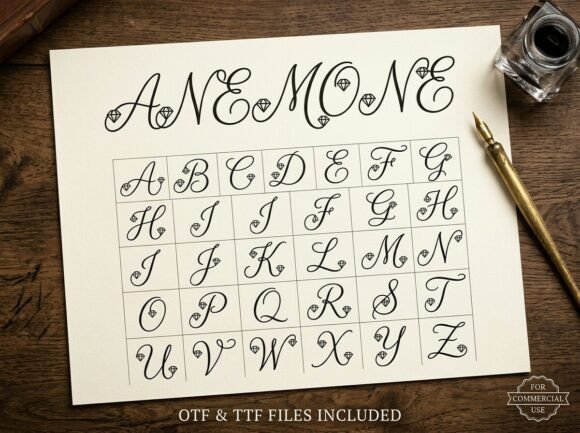
Dazzle Your Audience with Anemone: The Premium Ornamented Script Font
In the world of typography, few fonts manage to convey the essence of luxury and elegance as effectively as Anemone. This premium ornamented script font is a masterpiece of high-end design, bringing together the fluidity of calligraphic strokes with the opulence of gemstone-inspired accents. Anemone is more than just a font – it’s an experience, designed to elevate your brand, designs, and creations to new heights of sophistication and glamour.
The Essence of Anemone: Elegance and Opulence
Anemone’s design is characterized by its elegant, sweeping calligraphic strokes that dance across the page with a rhythmic flow. What sets this font apart, however, is its unique embellishment: each capital letter is adorned with a sparkling diamond icon, meticulously crafted to add an extra layer of luxury and refinement. This distinctive feature makes Anemone the perfect choice for designers and crafters looking to infuse their projects with a touch of high-end glamour.
Applications of Anemone: Where Luxury Meets Design
Anemone’s versatility and sophistication make it suitable for a wide range of applications, particularly where the essence of luxury needs to be communicated. Some of the ideal uses for Anemone include:
• Luxury Boutique Branding: For high-end boutiques and luxury brands, Anemone offers a typographic solution that exudes exclusivity and elegance, helping to create a lasting impression on discerning clients.
• Independent Jewelry Designer Logos: Given its gemstone-inspired aesthetic, Anemone is a natural fit for jewelry designers looking to brand their business with a symbol of sophistication and craftsmanship.
• High-Fashion Editorial Headers: Add a touch of glamour to fashion editorials and magazines with Anemone’s sophisticated and eye-catching lettering.
• Opulent Wedding Stationery: Make wedding invitations, menus, and other stationery elements shine with Anemone’s luxurious and romantic typography, setting the tone for an unforgettable celebration.
Why Choose Anemone?
Choosing Anemone for your design projects comes with numerous benefits:
• Unique and Memorable: The distinctive gem-set capital letters ensure that your designs stand out, making them more memorable to your audience.
• High Versatility: Anemone can be used across various design materials, from digital platforms to print, offering flexibility in its application.
• Elegance and Sophistication: The font’s inherent luxury aesthetic lends an air of sophistication to any project, elevating the perceived value of your brand or creation.
• Easy to Pair: Despite its ornate details, Anemone pairs well with a variety of fonts, allowing for creative combinations that enhance your design’s overall impact.
Tips for Using Anemone Effectively
To maximize the impact of Anemone in your designs, consider the following tips:
• Balance with Simplicity: While Anemone is stunning on its own, balancing it with simpler fonts can create visual interest and ensure readability.
• Consider Context: Ensure that the use of Anemone aligns with the project’s tone and audience. Its luxurious feel is perfect for high-end projects but might not suit more casual or playful designs.
• Experiment with Colors: While the font’s design is striking in black, experimenting with metallic or pastel colors can further enhance its luxurious appearance.
Author greenvill
Anemone is not just a font – it’s a statement of luxury, elegance, and refinement. Whether you’re a designer looking to elevate your client’s brand, a craftsperson aiming to add a touch of glamour to your products, or simply someone who appreciates the finer details in design, Anemone offers a world of possibilities. With its unique blend of calligraphic elegance and gemstone-inspired accents, Anemone is poised to become the go-to font for anyone seeking to dazzle their audience with a touch of high-end sophistication.